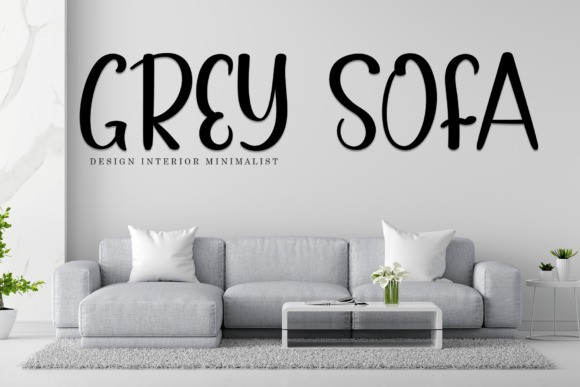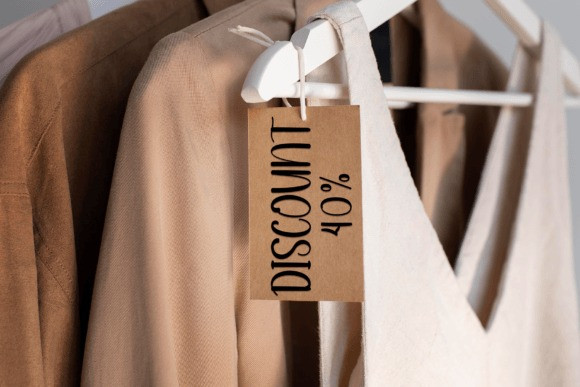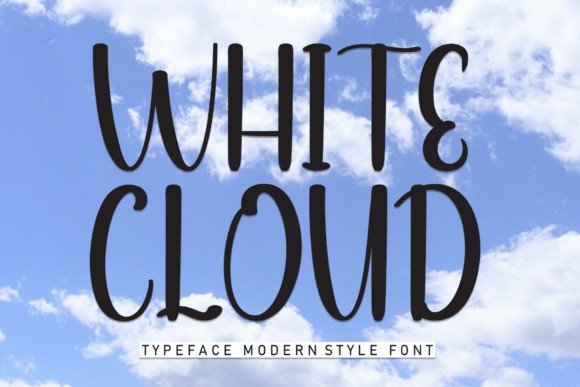
White Cloud Font
White Cloud is a sweet and friendly handwritten font. Fresh and cute, this font is ideal for writing wedding invitations, cards, or any other design that might need a fun touch!